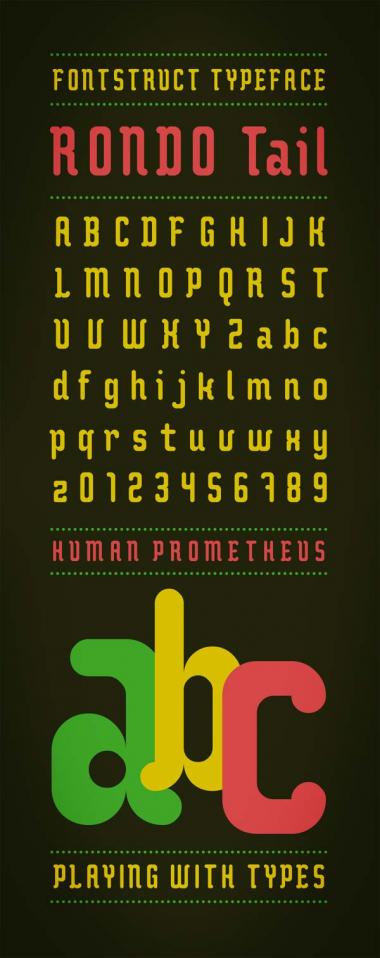
And I thought Rondo was particularly good! I'm running out of superlatives.
Very nice work.
My only crit is on the A: maybe have the base of the counter-space have a shape angle on both sides, instead of just the left. It almost wants to look like an R, b/c of the rounded right leg.
Besides that, I really like the 'face. It has a nice retro appeal.